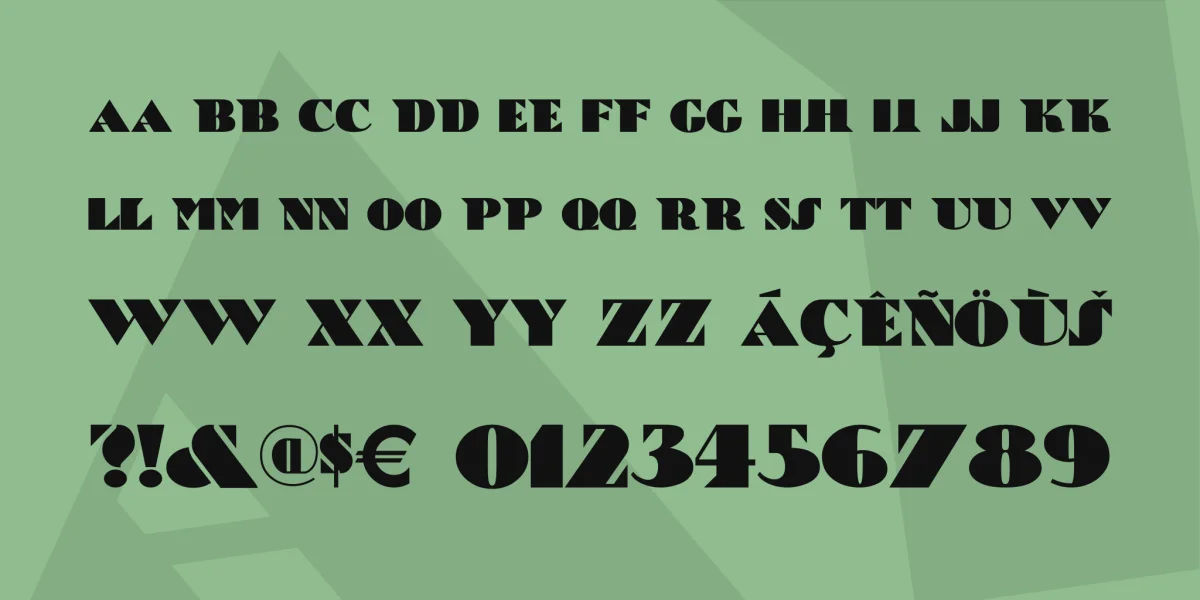
The authors of Deco Type: Stylish Alphabets of the 20’s and 30’s doubtless considered this the quintessential Art Deco font, because they used it on the cover of their book. Originally called Cubist Bold, the font was designed by John Zimmerman for Barnhard Brothers and Spindler, circa 1929. My version gets its handle from a play on the name of one of the co-founders of Cubism, Georges Braque (the other one was some guy named Picasso).